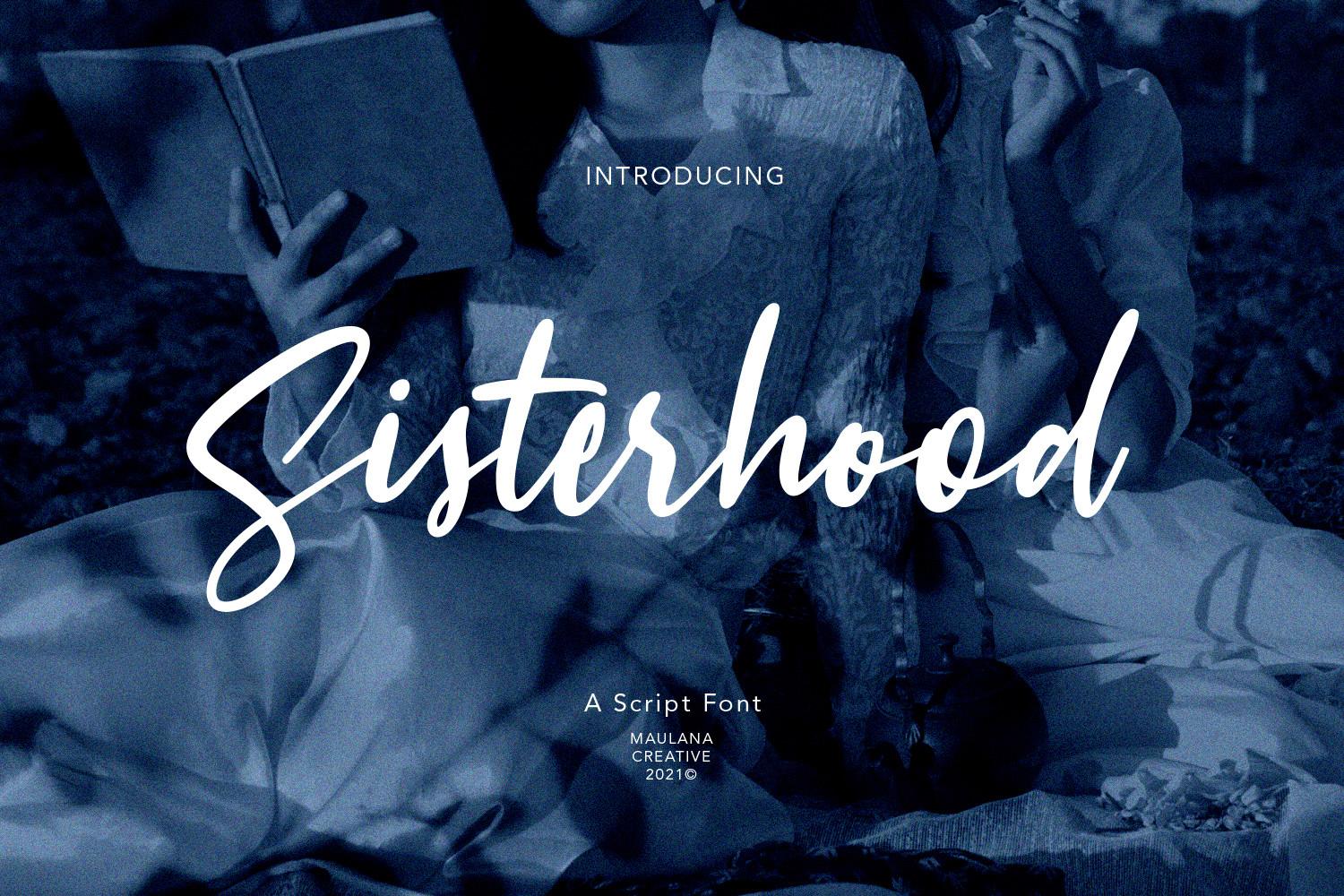
Sisterhood Font Description
Sisterhood is a fun and playful handwritten font. With creative ligatures and nicely rounded characters, this typeface is suitable for a variety of projects such as logo designs, movie titles, book titles, and anything that needs to look stunning!